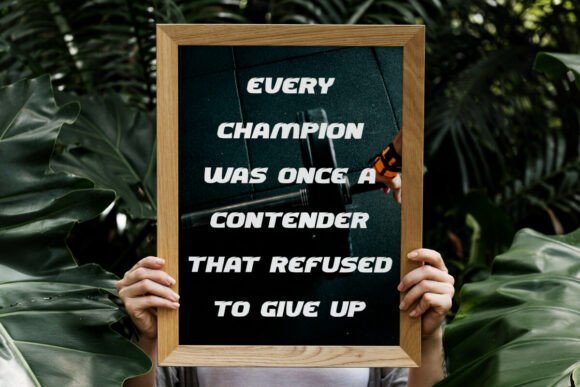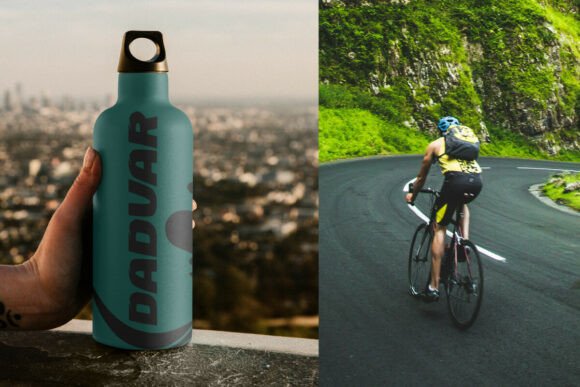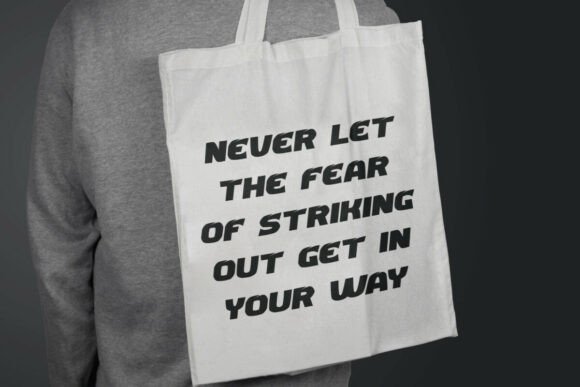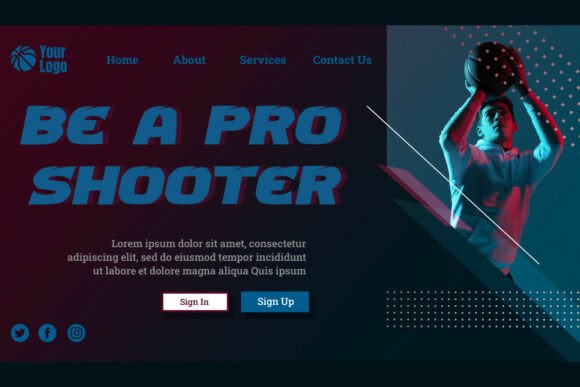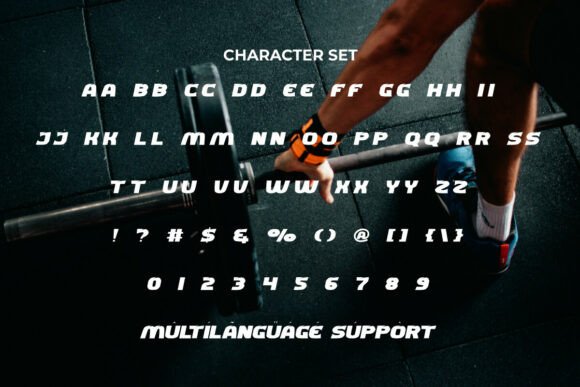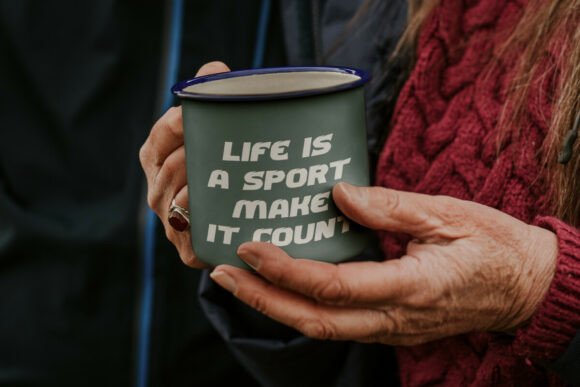
The Perfect Blend of Speed and Style: Unlocking the Power of Celebrity Sports Font
Imagine you’re on the verge of a major design breakthrough, and everything clicks into place. You’re working on a project, and suddenly, you need a font that screams action, energy, and competition. That’s where the Celebrity Sports Font comes in – a game-changing, ultra-bold display sans-serif typeface designed to leave a lasting impression. With its aggressive angles and dynamic letterforms, this racing-inspired font is the ultimate solution for designers seeking to create high-impact visuals that demand attention.
The Celebrity Sports Font is your go-to tool for crafting striking sports branding, automotive graphics, and impactful headlines that leave a lasting impact. Its powerful presence makes it perfect for large-scale displays like posters, game titles, and apparel. As a designer, you’ll appreciate the versatility and modern aesthetic of the Celebrity Sports Font, guaranteeing a dominant visual statement that sets your work apart from the crowd.
Celebrity Sports Font Key Features
- Font Family: Celebrity Sports Font is a unique, hand-drawn font designed specifically for sports and entertainment branding.
- Unique Characteristics: Features bold, dynamic, and playful letterforms with custom-designed characters and ligatures, making it perfect for sports and entertainment branding.
Celebrity Sports Font Review
Overall, I was excited to dive into the Celebrity Sports Font, but my experience was a bit of a mixed bag. Here’s my honest take:
- The font’s bold and playful personality is infectious. It’s perfect for sports-related projects where you want to convey energy and excitement.
- The font’s versatility shines when used in various sizes and styles. It’s great for headings, titles, and even body text.
- The font’s modern aesthetic makes it a great choice for contemporary sports brands and websites.
- The font’s readability takes a hit when used in smaller sizes or with low contrast backgrounds. Be cautious when using it in these scenarios.
- The font’s over-the-top personality might not be suitable for more serious or professional sports projects.
Overall, I’d say the Celebrity Sports Font is a solid choice for sports-related projects where you want to make a bold statement. Just be mindful of its limitations and use it thoughtfully. With some creative constraint-bending, this font can be a real winner.
Here are some tips for getting the most out of the Celebrity Sports Font:
- Use it to create eye-catching headlines and titles.
- Use it in conjunction with other fonts to create a unique and stylish design.
The Celebrity Sports Font is perfect for:
- Sports-themed designs and graphics.
- Event invitations and promotions